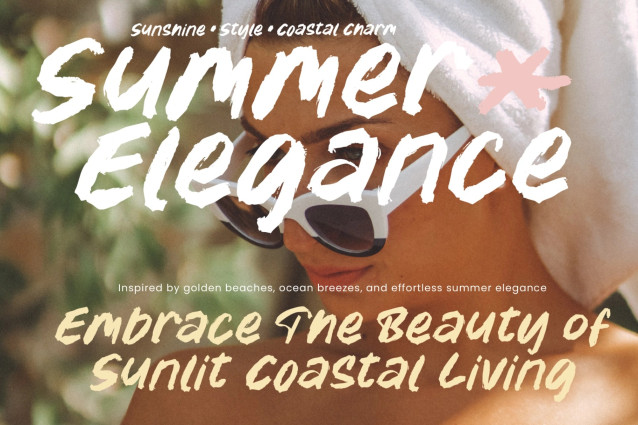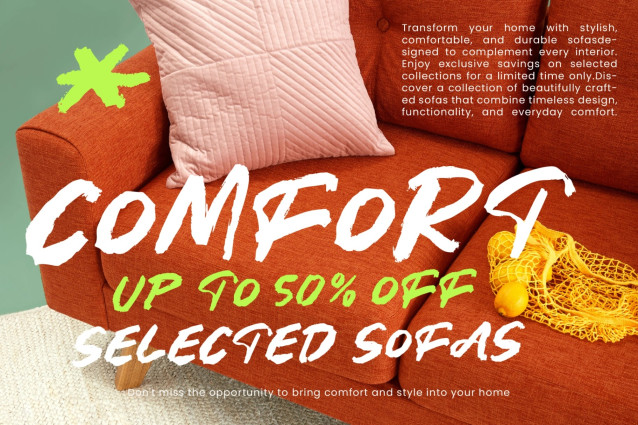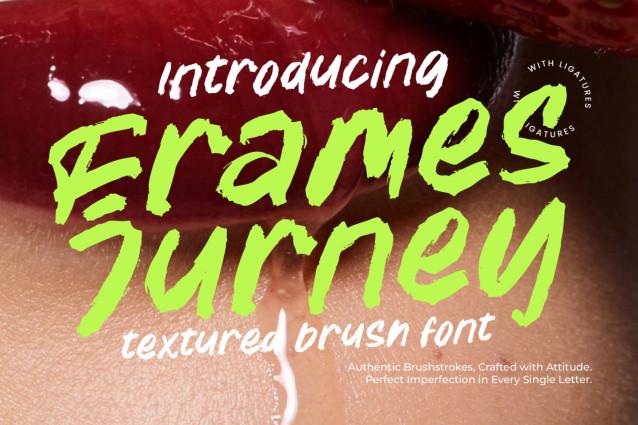
Frames Jurney Font
Frames Jurney Font is a bold and expressive textured brush font crafted to capture the raw energy of authentic hand-painted lettering. Every character is built with natural brushstroke details, rough edges, and organic imperfections that bring a genuine handcrafted feel to your designs.
Designed for creators who want typography with personality, Frames Jurney delivers strong visual impact while maintaining excellent readability. The dynamic brush texture creates a sense of movement and spontaneity, making it ideal for projects that demand a bold, adventurous, and artistic appearance.
Whether you’re designing branding materials, social media content, packaging, posters, merchandise, or editorial layouts, Frames Journey adds a confident handcrafted touch that instantly attracts attention.
Its natural brush characteristics create an energetic visual rhythm that feels modern, creative, and authentic—perfect for brands and designers seeking a more human, expressive aesthetic.